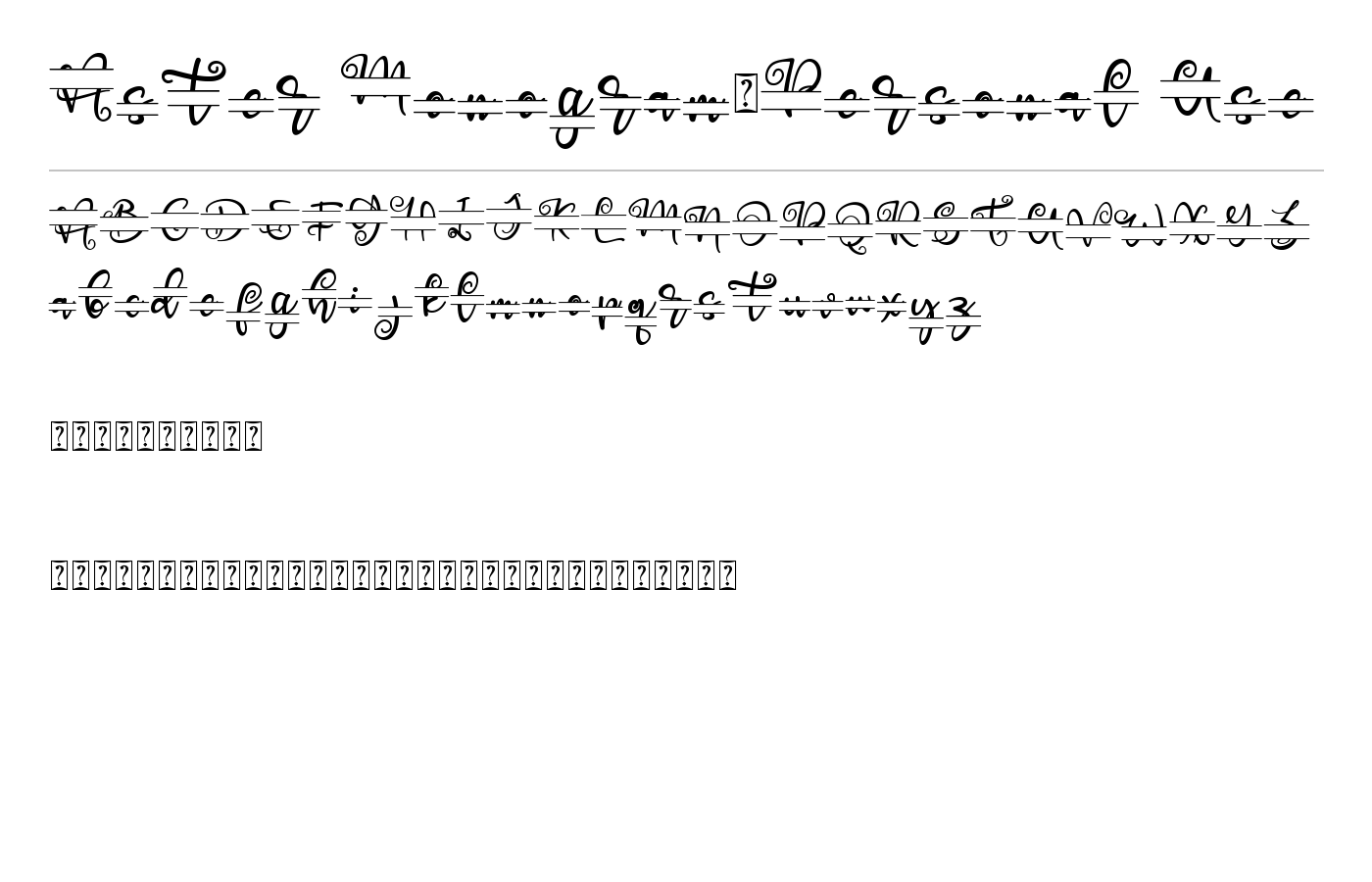
Aster Monogram is an elegant, decorative script font with delicate, swirling strokes that convey a refined, vintage charm. Its intricate letterforms, characterized by ornate loops and curls, make it ideal for sophisticated monograms, luxury branding, and artistic designs needing a personal, handcrafted touch. This font works beautifully for logos, wedding invitations, and high-end packaging where a sense of classic elegance and individuality is desired.
Aster Monogram_Personal Use Font
About Aster Monogram_Personal Use Font